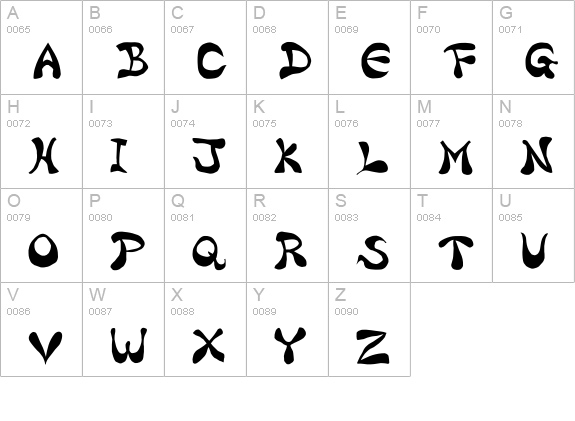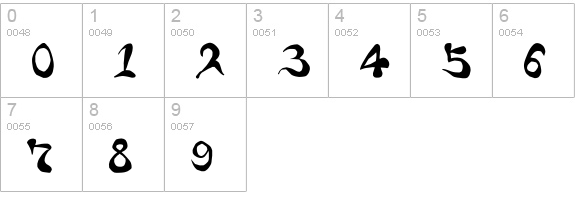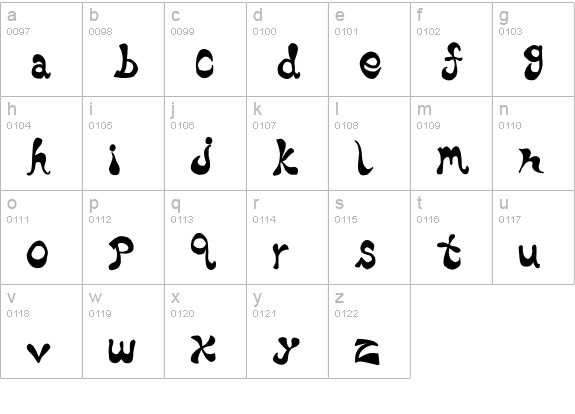
Bharatic-Font Font Details
Introducing Bharatic-Font, a stunning and versatile typeface that brings elegance and sophistication to any design project. This exquisite font features intricate details and a unique style that is sure to make your text stand out. With its bold yet graceful appearance, Bharatic-Font is perfect for a wide range of applications, from branding to editorial design and everything in between. What's more, Bharatic-Font is available for free download at FontsMarket.com, making it easily accessible to designers and creatives looking to add a touch of class to their work. Whether you're working on a logo, poster, website, or any other design project, Bharatic-Font is sure to impress with its timeless appeal and exceptional quality. Download Bharatic-Font today and elevate your designs to new heights!